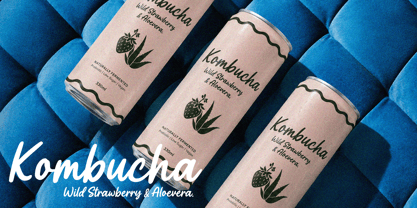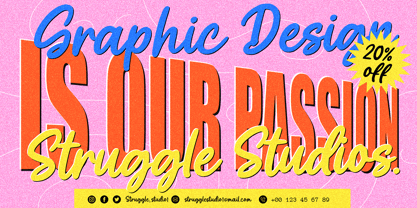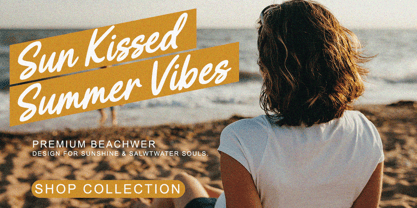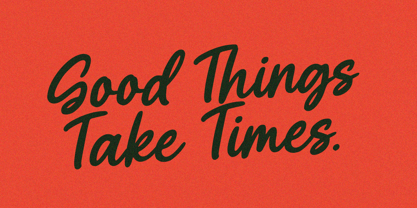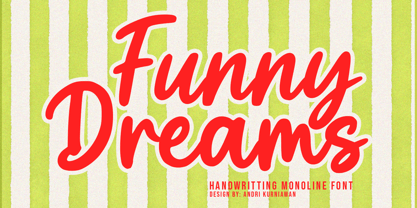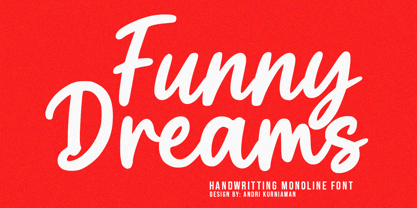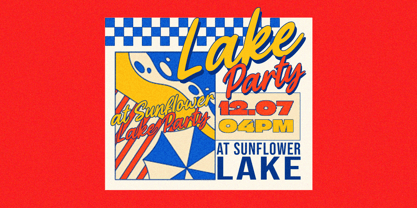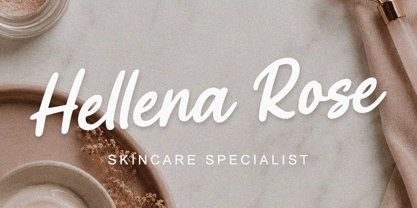
Funny Dreams
Funny Dreams is a cheerful and playful handwritten monoline font designed to bring warmth, personality, and creativity to any project. Featuring smooth flowing strokes, rounded terminals, and a casual hand-drawn appearance, this font delivers a friendly and approachable feel while maintaining excellent readability.
Its bold monoline structure and lively character make it perfect for children's products, playful branding, packaging, greeting cards, social media graphics, posters, t-shirt designs, stickers, invitations, and creative craft projects. The natural handwritten style creates an authentic and energetic look that instantly captures attention.
With its fun curves, whimsical personality, and modern retro charm, Funny Dreams adds a sense of joy, imagination, and positivity to every design. Whether used for eye-catching headlines or charming branding elements, this font helps create memorable visual experiences with a unique handcrafted touch.
Perfect for:
• Kids Branding & Products
• Packaging Design
• Logo & Brand Identity
• Social Media Content
• Posters & Advertising
• T-Shirt & Merchandise Design
• Greeting Cards & Invitations
• Craft & DIY Projects
• Quotes & Typography Art
• Fun Editorial Layouts